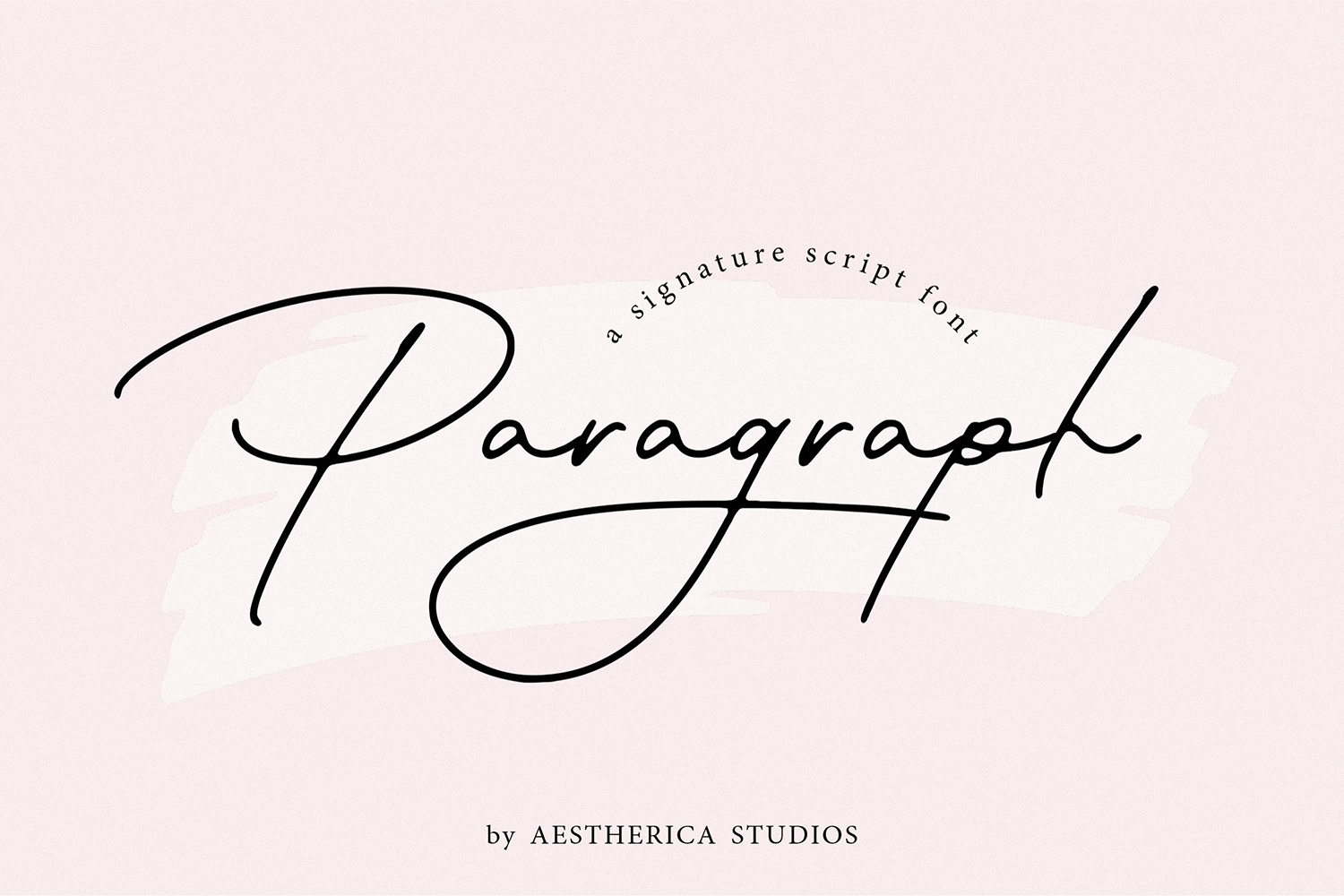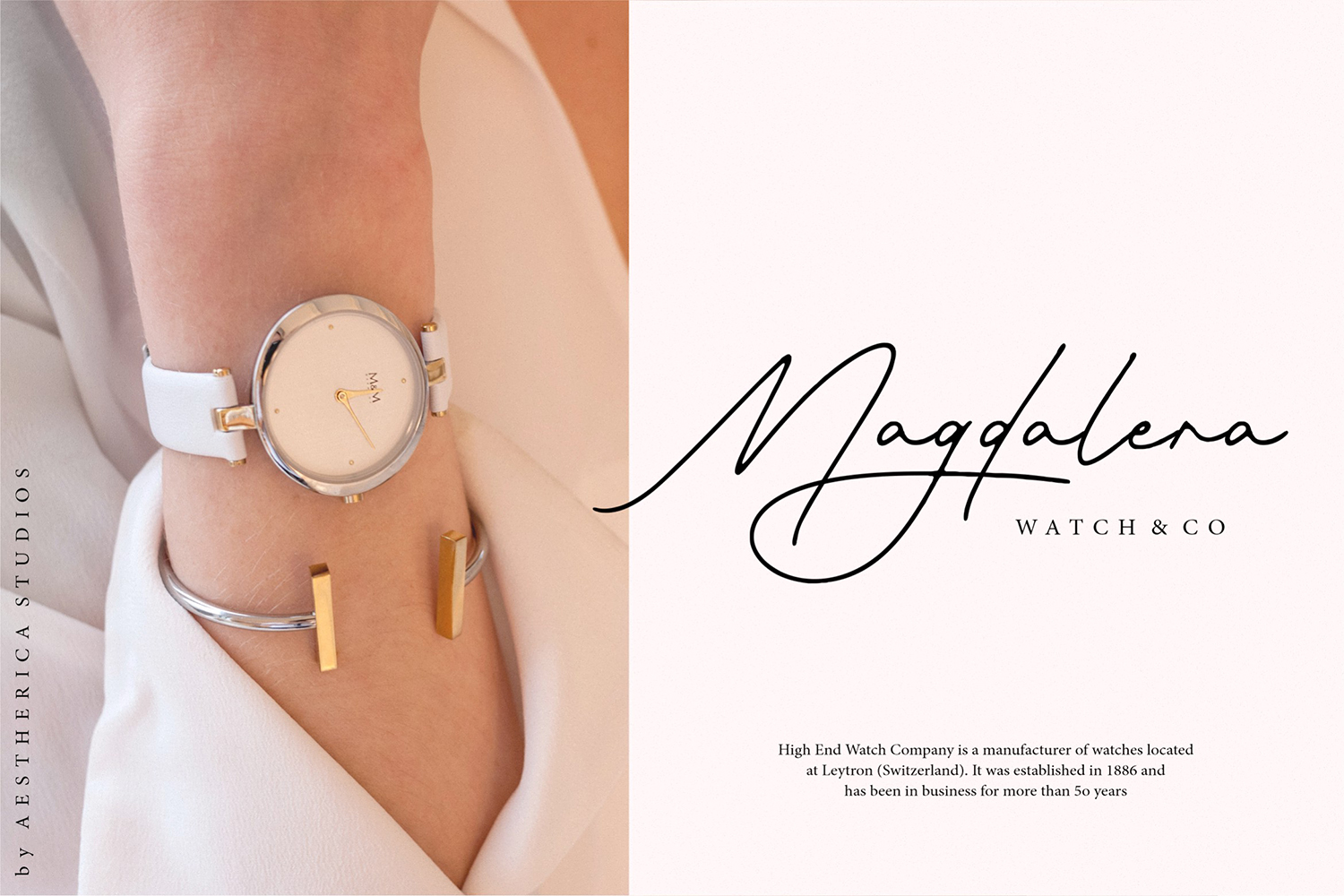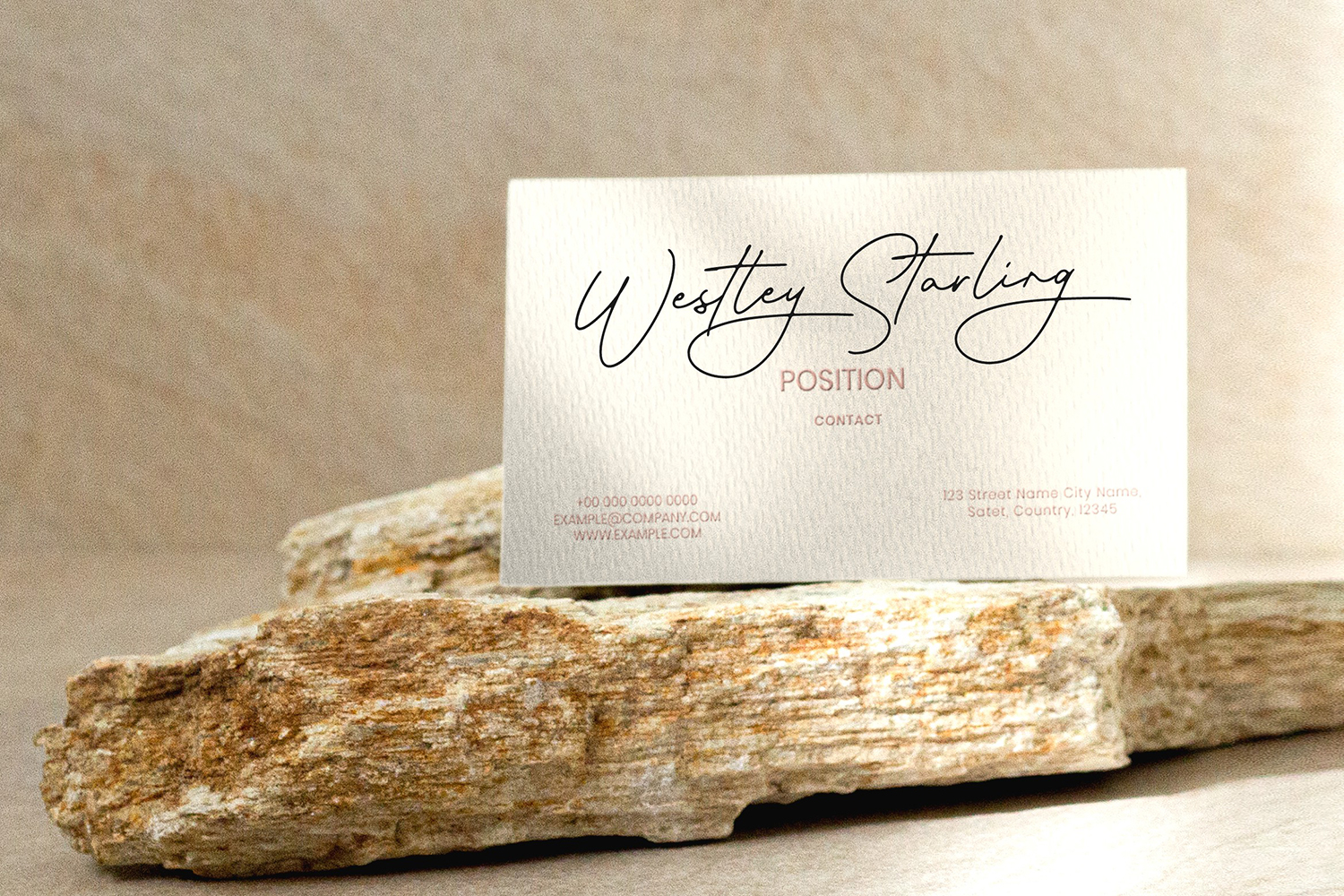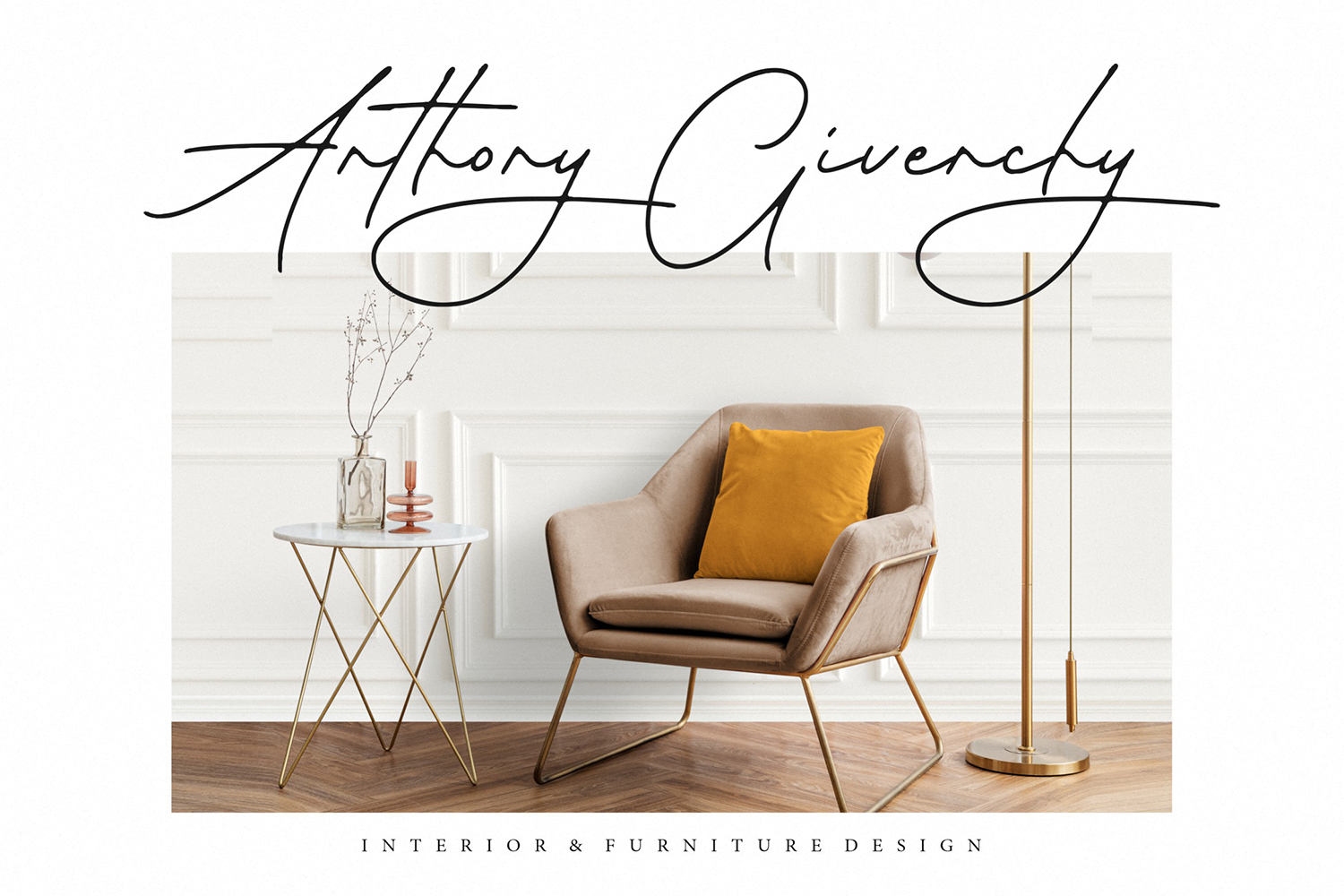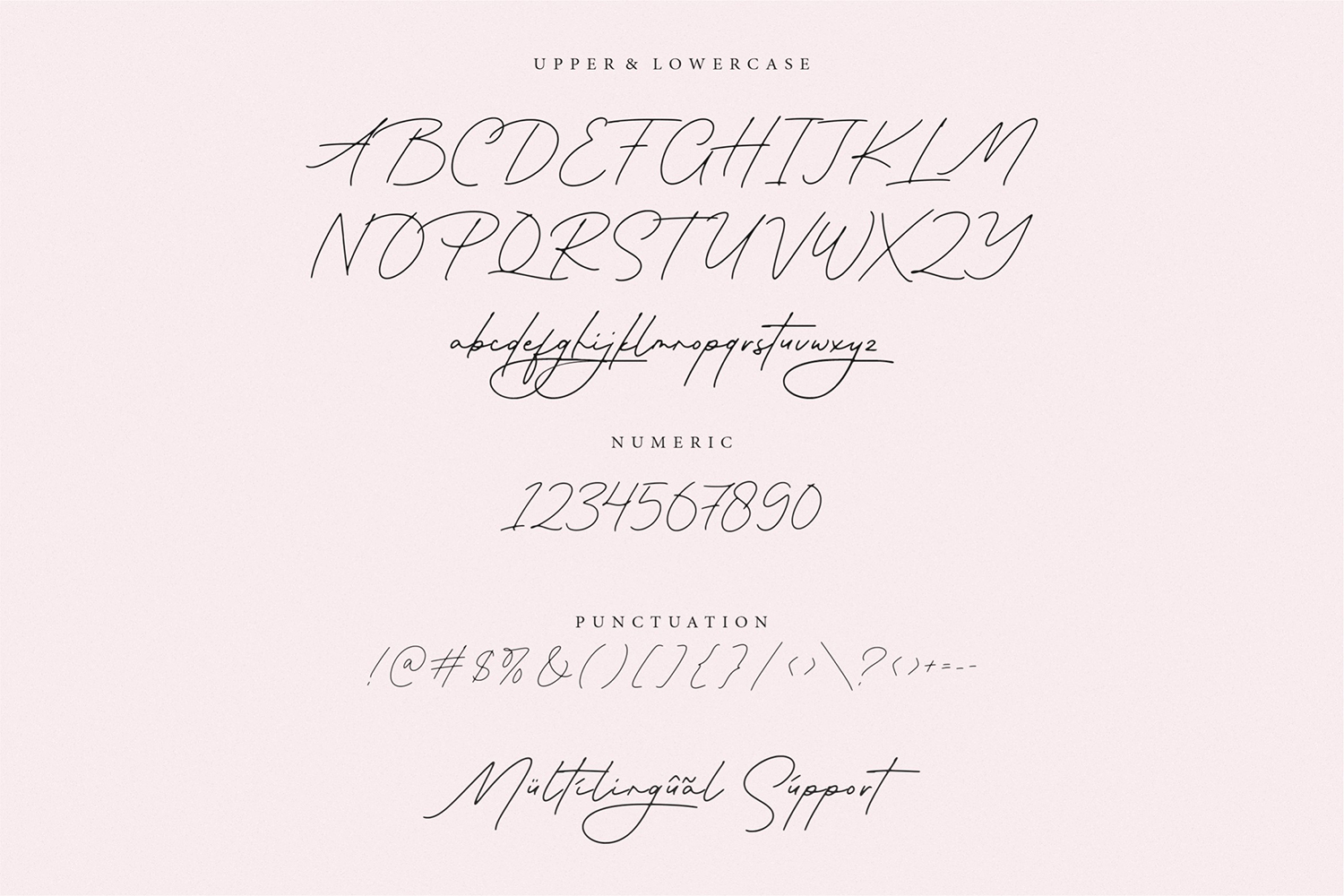
Paragraph Free Font
Paragraph Free Font is the ultimate choice for a myriad of applications, including product packaging, branding projects, magazines, social media posts, weddings, and more. This versatile font is designed to effortlessly express words above various backgrounds, enhancing visual impact and delivering a captivating message. Whether you’re looking to add a touch of elegance or make a bold statement, Parapraph is the go-to font to elevate your designs and captivate your audience. This free typeface was designed by a talented Aestherica Studio. If you like it don’t forget to check out the full version.